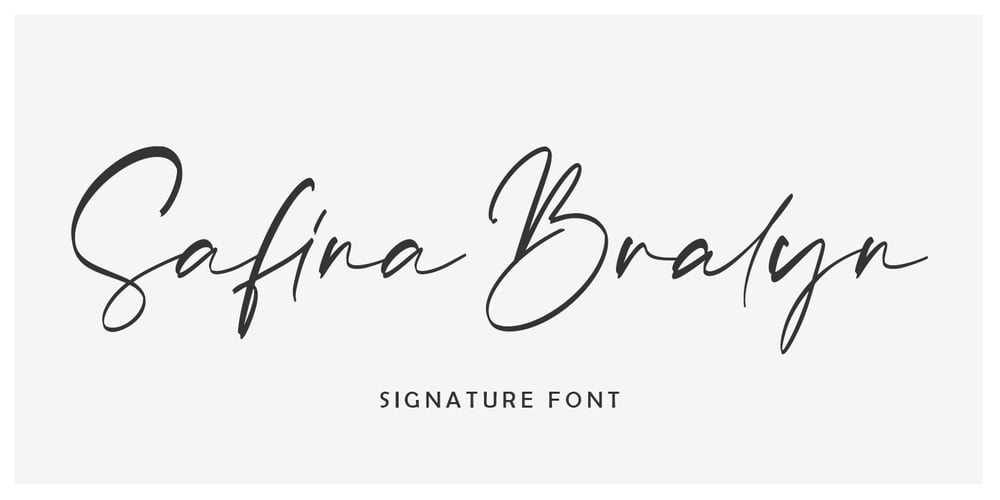
Safina Bralyn
Safina Bralyn font
Safina Bralyn Font Family was designed by Asep Rendi and published by Arendxstudio. Safina Bralyn contains 1 styles and family package options. Safina Bralyn is a handwritten signature font which is very elegant and modern for you to use and your design interests be it for logos, branding names, posters, podcasts and so on.